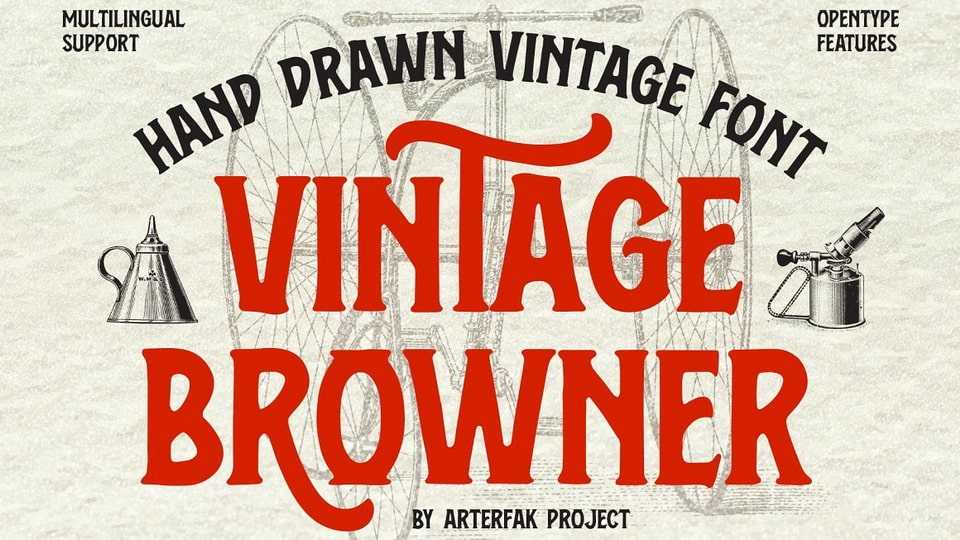
Download Vintage Browner font, an exquisitely designed vintage-inspired typeface. Meticulously crafted with an original hand-drawn design, it exudes an old-school charm that is ideal for designs requiring a classic touch.